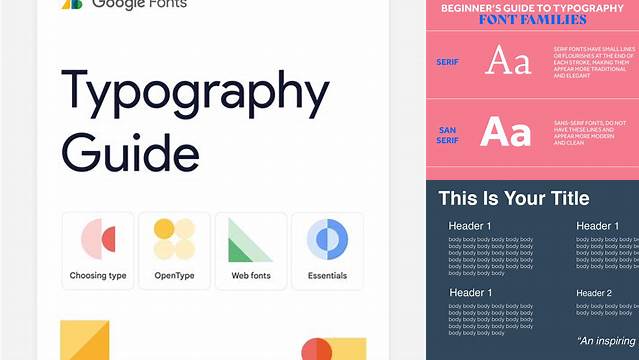
Google Fonts: Your Web Typography Guide
Hey guys, let's dive into the world of web typography and explore a fantastic resource that helps us make our websites look awesome: fonts.googleapis.com. This is where you can find a massive library of free, open-source fonts that you can easily use on your website. It's like having a candy store for your website's text! Choosing the right fonts can significantly impact how your website looks and how your audience perceives it. So, whether you're a seasoned web designer or just starting out, this guide will walk you through everything you need to know about fonts.googleapis.com and how to use it to create visually appealing websites.
What is fonts.googleapis.com?
Alright, so what exactly is fonts.googleapis.com? Simply put, it's a service provided by Google that hosts a vast collection of fonts, ready for you to use on your website. These aren't just any fonts; they're all open-source, meaning you can use them for free, even for commercial purposes. That's a pretty sweet deal, right? Google Fonts offers hundreds of different typefaces, from classic serifs to modern sans-serifs, and everything in between. The platform makes it super easy to browse, preview, and download these fonts for your projects. Beyond providing the fonts themselves, Google Fonts also gives you the tools and resources to implement these fonts correctly on your website. This includes generating the necessary code snippets and providing helpful tips on how to ensure your fonts load quickly and efficiently. The platform has become a cornerstone of web design, providing a simple and reliable way for designers and developers to enhance the visual appeal and readability of websites worldwide. The convenience and wide selection of fonts makes it an essential tool for creating websites that not only look great but also provide a fantastic user experience.
Understanding the benefits of using fonts.googleapis.com goes beyond just having access to a vast font library. One of the main advantages is the performance optimization that Google provides. When you use fonts.googleapis.com, the fonts are served from Google's content delivery network (CDN). CDNs are essentially networks of servers distributed across the globe. This means the fonts are delivered to your website visitors from the server closest to them, which dramatically reduces loading times. Faster loading speeds are crucial for a good user experience and are also a significant factor in search engine rankings. Another advantage is ease of use. Implementing fonts from Google Fonts is incredibly straightforward. You typically need to add a single line of code to your website's HTML, and you're good to go. This ease of use makes it accessible for both beginners and experienced developers. Moreover, Google Fonts offers cross-browser compatibility, ensuring your website looks consistent across different browsers and devices. This consistency is vital for providing a seamless experience to all your users. Let's not forget about the open-source nature of these fonts. This means you have the freedom to use them in any project, commercial or personal, without worrying about licensing fees. This flexibility is a huge advantage, especially for small businesses and individual creators with limited budgets. Finally, Google Fonts is regularly updated with new fonts and improvements, keeping your design options fresh and ensuring you have access to the latest in web typography. Overall, the benefits of using fonts.googleapis.com extend beyond aesthetics, encompassing performance, ease of use, and legal freedoms.
Choosing the Right Fonts for Your Website
Okay, so you've got access to all these amazing fonts. But how do you choose the right ones? Don't worry, it's not as complicated as it sounds! The key is to consider your website's purpose and target audience. Think about what message you want to convey and what kind of feeling you want to evoke. For example, if you run a children's website, a playful and friendly font might be perfect. If you're running a professional blog about finance, a clean and readable font is a much better choice. Here's a few key considerations:
- Readability: This is probably the most important factor. Your website's content should be easy to read. Choose fonts that are legible at various sizes and on different devices. Avoid overly decorative fonts for body text, as they can be difficult to read for extended periods. For body text, aim for simple, clear fonts like Open Sans, Roboto, or Lato. These are designed to be highly readable in a range of sizes and on different screens.
- Personality: Fonts have personality, and they can communicate different messages. A serif font (like Times New Roman or Georgia) often conveys a sense of tradition, trust, and authority. Sans-serif fonts (like Arial or Helvetica) are often perceived as more modern, clean, and friendly. Script fonts can add a touch of elegance or a more casual feel, but should be used sparingly as they can be hard to read. Consider the overall tone of your website and choose fonts that reflect that personality. For a website aimed at a younger audience, you might choose a more playful sans-serif. For a legal firm, a more formal serif might be suitable.
- Pairing Fonts: Don't just pick one font and stick with it. Think about how you'll pair different fonts for headings, subheadings, and body text. Pairing fonts is an art, and it's something you should experiment with. Use a tool like Google Fonts' pairing tool, which suggests great font combinations. For example, a good combination may be a strong, clean sans-serif for headings with a readable serif for body text. Ensure your fonts complement each other and create visual harmony. Don't use too many different fonts, as this can make your website look cluttered and unprofessional. Two or three different fonts are often sufficient.
- Font Weight and Style: This is the thickness of a font, e.g., regular, bold, or italic. The style is either the italic or regular version of a font. Use different weights and styles to create a visual hierarchy and emphasize important information. Use bold for headings and important keywords. Use italics sparingly for emphasis, quotes, or to differentiate text. Make sure your chosen fonts have sufficient weights and styles to meet your design needs.
- Legibility on Different Devices: Test your chosen fonts on different devices (desktop, tablet, and mobile) to ensure they're legible. Mobile-first design is very important, so keep this in mind. Ensure your fonts are scaled properly and appear correctly across various screen sizes. Consider how fonts will appear on smaller screens, and choose those that are optimized for mobile viewing.
- Consider Your Brand: Your font choices should align with your brand's overall identity and aesthetic. The fonts you use should reflect your brand's values, personality, and the message you want to communicate to your audience. Consistency is critical here; using the same fonts across all your brand's materials will help build brand recognition and trust.
How to Use Fonts from fonts.googleapis.com
Using fonts.googleapis.com is super easy. Here's a step-by-step guide:
- Browse and Select: Go to fonts.google.com and browse the fonts. You can filter by category (serif, sans-serif, display, etc.) and even search for specific fonts. Once you find a font you like, click on it to view more information.
- Choose Styles: On the font's page, select the font styles (e.g., regular, bold, italic) you want to use. Google Fonts will generate a code snippet for you.
- Embed the Font: You have two main ways to embed the font: either through
<link>tag in your HTML's<head>section or by using the@importrule in your CSS file. The<link>method is generally recommended for performance reasons. Copy the generated code from Google Fonts and paste it into the<head>section of your HTML file. - Apply the Font in CSS: Now, in your CSS file, you need to specify which elements should use the font. Use the
font-familyproperty. For example, to apply the font to all paragraph tags (<p>), you'd write:p { font-family: 'Your Font Name', sans-serif; }. Make sure to include a fallback font (likesans-seriforserif) in case the primary font doesn't load. - Test and Refine: Test your website on different devices and browsers to ensure the font looks and works as expected. Adjust font sizes, line heights, and other CSS properties to optimize the readability and visual appeal. Regularly check your website's performance, as the wrong font can impact loading times.
Optimizing Performance with Google Fonts
When using fonts.googleapis.com, you can take a few steps to optimize the performance of your website. Slow loading times can frustrate visitors and hurt your search engine rankings, so it's essential to make your website as efficient as possible.
- Choose Only Necessary Styles: Don't load all the available font styles if you only need a few. Select only the weights and styles you are using. For example, if you only use regular and bold, don't load the light, italic, and other variations. By selecting only the necessary styles, you reduce the amount of data the browser needs to download.
- Preload Fonts: Use the
<link rel="preload">tag to preload fonts. This tells the browser to download the fonts as soon as possible, even before the CSS is parsed. Add this to your<head>section:<link rel="preload" href="https://fonts.googleapis.com/css2?family=Your+Font:wght@400;700&display=swap" as="style">. Replace "Your+Font" with your font's name andwght@400;700with the weights you're using. This helps the fonts load faster. - Use a CDN (Content Delivery Network): Google Fonts is already served from a CDN, which is a great thing. CDNs deliver content from servers closer to your users, improving loading times. Using a CDN helps to reduce latency and speed up content delivery, providing a faster, smoother experience.
- Subset Fonts (if needed): If your website primarily uses a specific language, consider subsetting the font to include only the characters needed for that language. This reduces the file size. Subset fonts are available on certain platforms and can significantly reduce loading times if your site's content is limited to a specific character set.
- Combine and Minify CSS: If you are using other CSS files, combine them into one to reduce the number of HTTP requests. Also, minify your CSS by removing unnecessary characters (whitespace, comments). Minified CSS is smaller in size, and a smaller file size means quicker loading.
- Consider Hosting Fonts Locally: In some cases, you might consider hosting the font files on your own server instead of using fonts.googleapis.com. This gives you more control, but it's usually more complicated to set up and maintain. Hosting locally can offer performance benefits because you're in control of caching and delivery. Be aware that you'll be responsible for updating the fonts and managing their versions, which can be a lot of work.
- Monitor Performance: Regularly use tools like Google PageSpeed Insights or GTmetrix to monitor your website's performance. These tools can help you identify areas where you can further optimize your font loading and overall site speed.
So there you have it, guys! fonts.googleapis.com is a fantastic resource for anyone looking to enhance their website's typography. By understanding how to choose the right fonts, implement them correctly, and optimize their performance, you can create websites that look great and offer an excellent user experience. Happy designing!